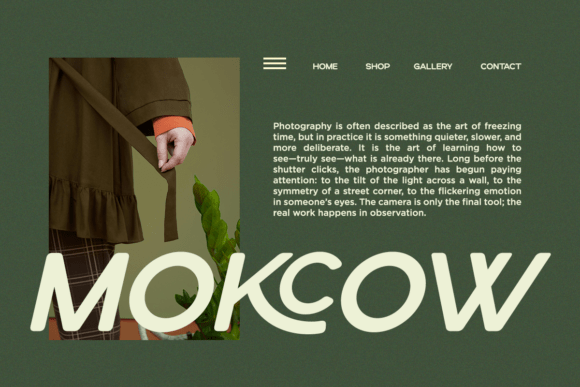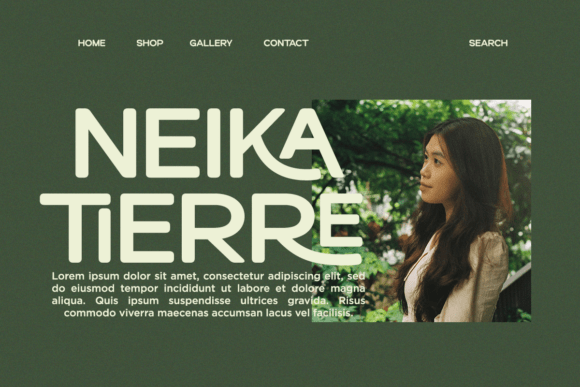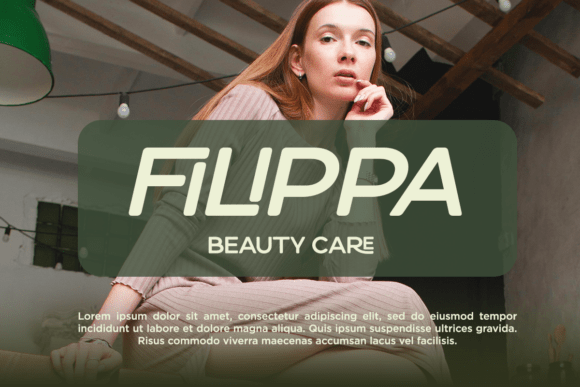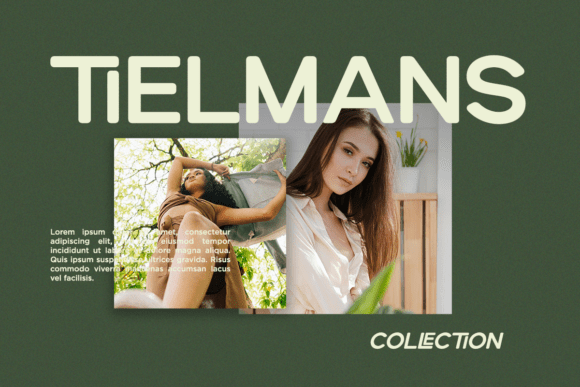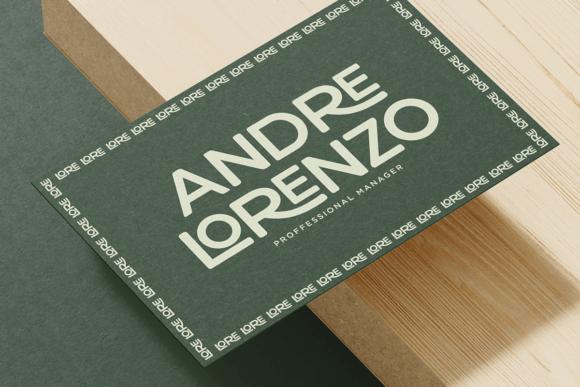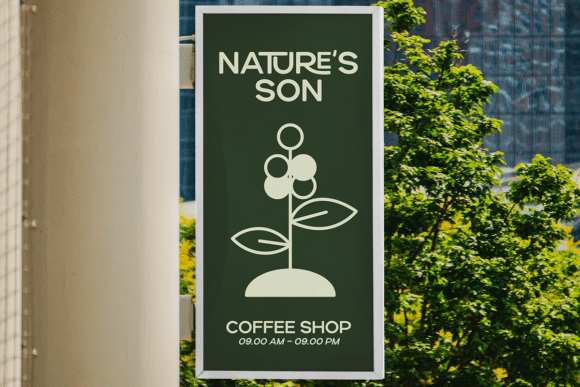
Introduction to Heroxin Font
Heroxin font is a stunning monoline ligature font that bridges the gap between mid-century modernism and contemporary graphic design.
The Heroxin typeface is defined by its fluid, interconnected strokes and circular motifs that create a sense of movement and unity Ideal for logo design and social media graphics, the Heroxin font transforms simple words into balanced, artistic compositions.